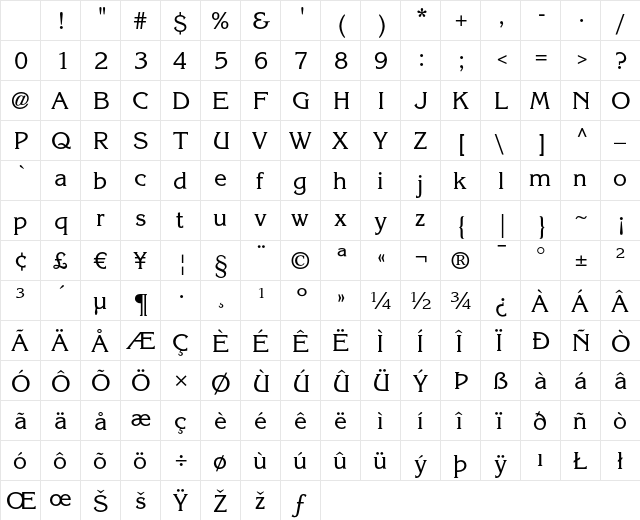
ITC Korinna LT Regular
Design Context for ITC Korinna LT
ITC Korinna LT is a composed and adaptable typeface that performs quietly and consistently across a wide range of design contexts. Its slender proportions lend an understated elegance to any composition.